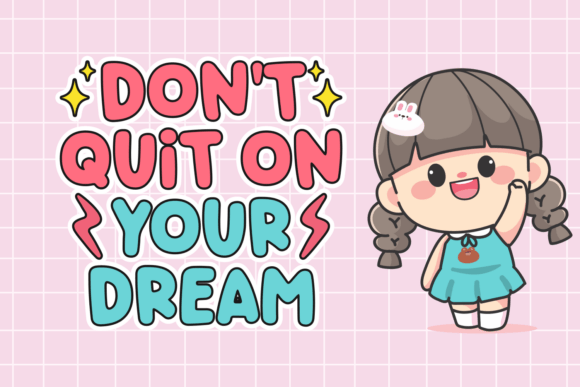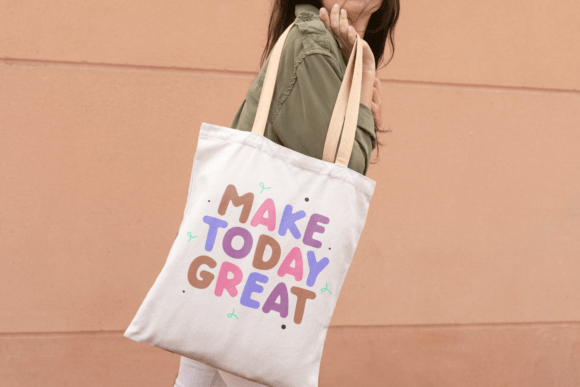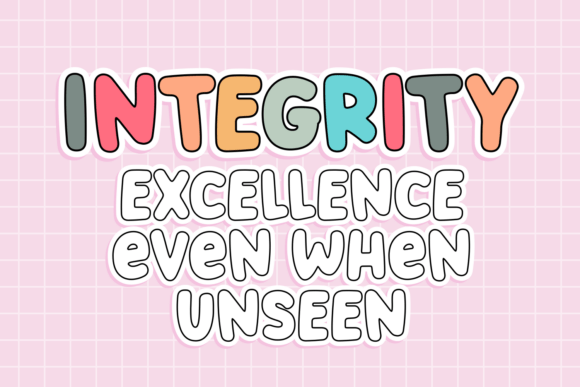
The Charm of Amor Alma Font: A Comprehensive Guide
I’ll never forget the moment I stumbled upon the Amor Alma font while working on a whimsical children’s book project. My client wanted a playful, yet elegant font that would bring their story to life. As I scrolled through font after font, none seemed to capture the perfect blend of fun and sophistication. That was until I discovered Amor Alma. Its soft, rounded edges and slightly irregular hand-drawn quality immediately won me over. In this article, I’ll share my experience with Amor Alma, its unique features, and how to make the most of this beautiful font.
- ✨ Soft, rounded edges that exude warmth and friendliness
- ✅ Complete uppercase and lowercase alphabet, numerals, and comprehensive punctuation and symbols
- 🌎 Multilingual support for adaptability across various languages and content types
- 🎨 Whimsical nature that sparks creativity and lightheartedness
While Amor Alma is an exceptional font, there are a few minor considerations to keep in mind:
- 🤔 Some characters may appear slightly irregular or imperfect, which can be a deliberate design choice but might not appeal to everyone’s taste
- ⚠️ Limited use of bold or heavy weights, which might not be suitable for designs requiring a strong, bold statement
Amor Alma was designed with the intention of capturing the essence of playful, carefree moments. Its creator aimed to craft a font that would bring a sense of joy and whimsy to designs, while maintaining a level of sophistication and elegance. The result is a font that feels both approachable and refined.
| Font Name | Amor Alma Font |
| Author | Situjuh |
Q: What makes Amor Alma suitable for children’s books?
A: Amor Alma’s playful, whimsical nature and soft, rounded edges make it an ideal choice for children’s books, as it creates a friendly and approachable atmosphere.
Q: Does Amor Alma support non-English languages?
A: Yes, Amor Alma offers multilingual support, making it adaptable to various languages and content types.
Q: Can I use Amor Alma for digital and print designs?
A: Absolutely! Amor Alma is a versatile font suitable for both digital and print designs, including social media graphics, business cards, and more.